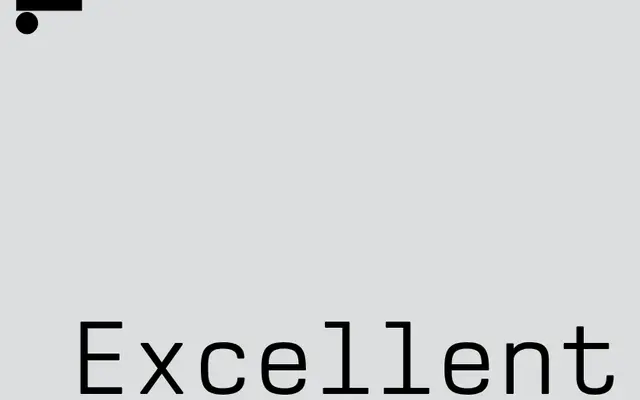
Excellent
Lineto · Stephan Müller · 2008
A faithful digital revival of a 1983 Triumph-Adler daisy wheel typeface, drawn at Stempel by Lothar Kloth and Willy Deege and expanded into a working family by Stephan Müller.
Originally commissioned by Triumph-Adler from the Stempel type foundry, the design draws on Aldo Novarese's Eurostile as a formal reference while remaining a distinctly original typewriter face. Stephan Müller's 2008 rendering for Lineto adds a bold weight and italic cuts to the original single-weight design, giving the family practical range for contemporary use. Daisy wheel cartridges carrying the original Excellent font remain in production today, lending the revival an unusual continuity with its physical source.
Based on a single-weight daisy wheel typewriter font originally drawn for Triumph-Adler in 1983, the design retains fixed-width, monospaced characteristics typical of typewriter typefaces, with stylistic references to Eurostile.